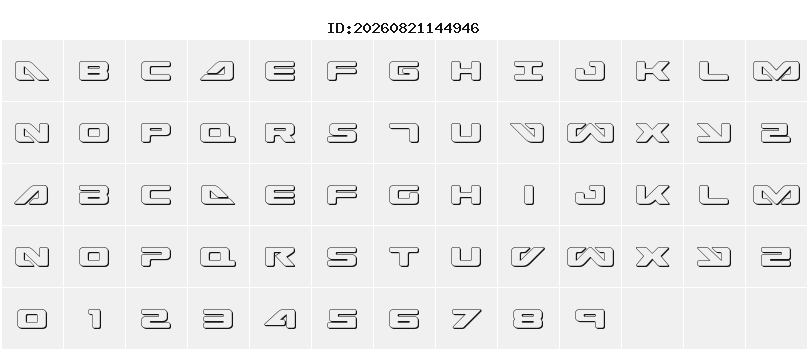
• Font Name: Sea-Dog Outline
• Font Style: Outline
About Sea-Dog Outline.ttf
Sea-Dog Outline.ttf is a modern, elegant sans-serif font designed for ultimate readability and visual harmony. Perfect for branding, headlines, web design, and print materials.